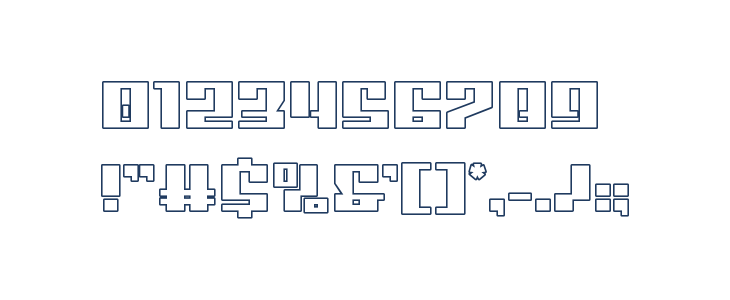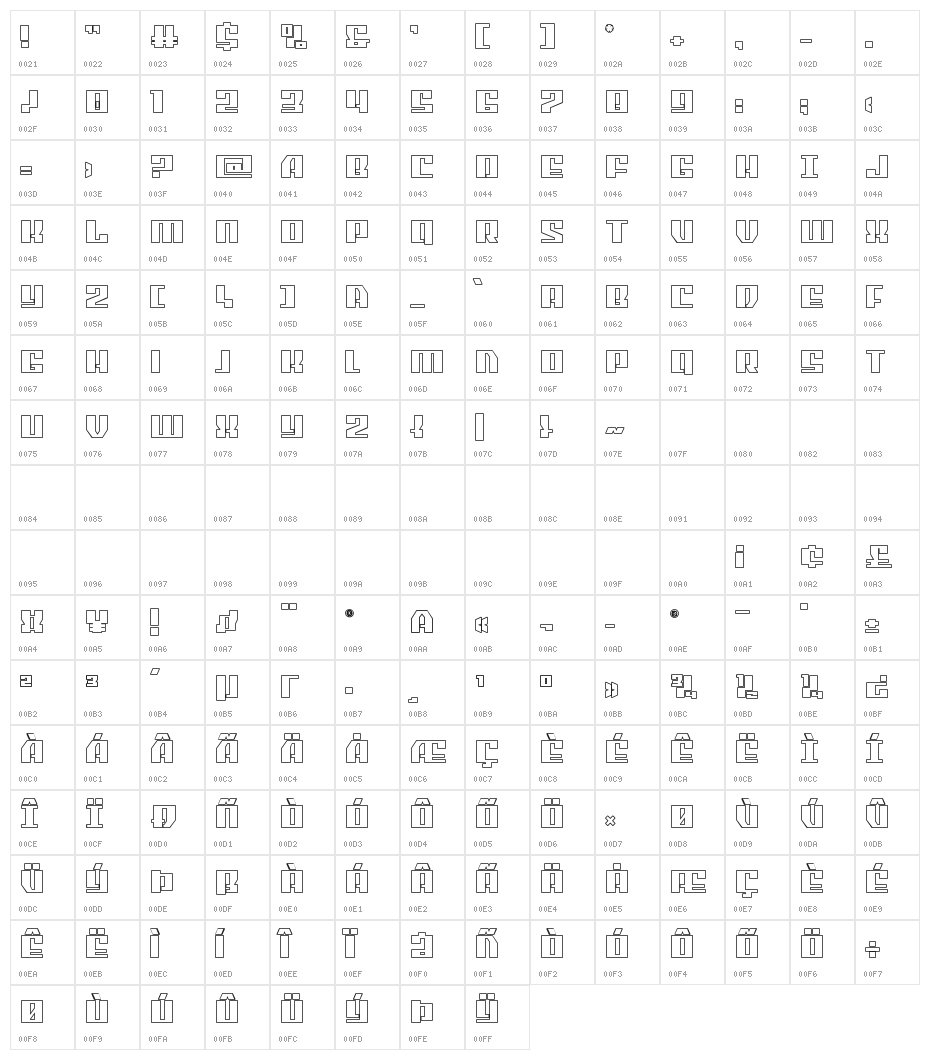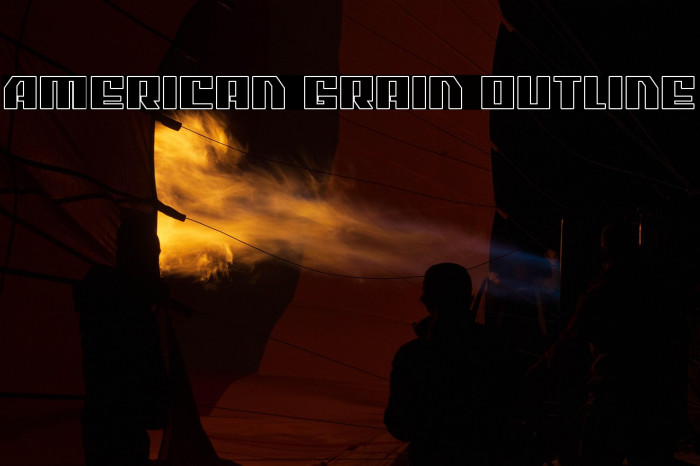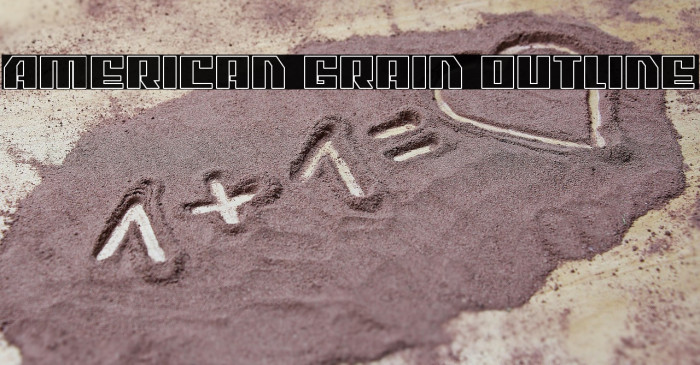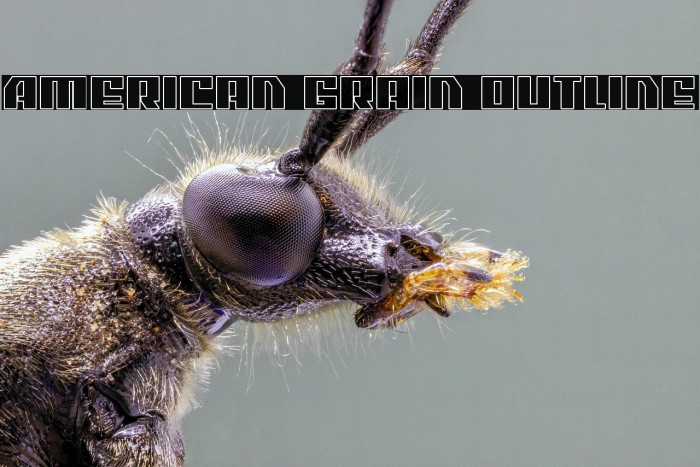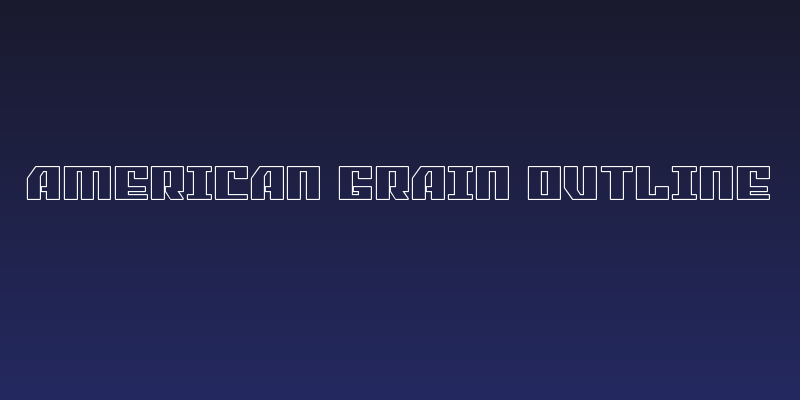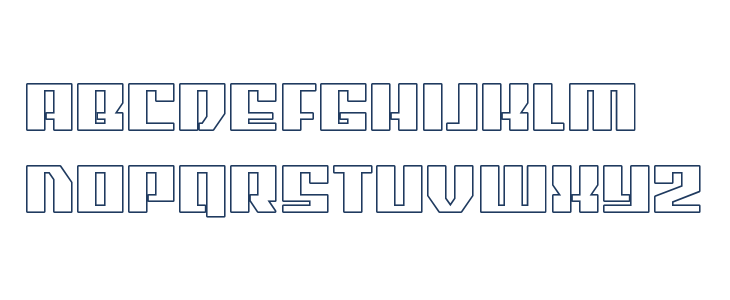
American Grain Outline Font
American Grain Outline Description
This font features a bold, geometric outline style that emphasizes a modern and industrial aesthetic. The characters are constructed with straight lines and sharp angles, creating a sense of strength and precision. The uppercase and lowercase letters maintain a consistent height, enhancing uniformity. The numerals and special characters follow the same structural design, ensuring a cohesive look across all glyphs. The outline effect adds a layer of depth, making the font suitable for standout designs. Its unique style is ideal for projects that require a bold statement.